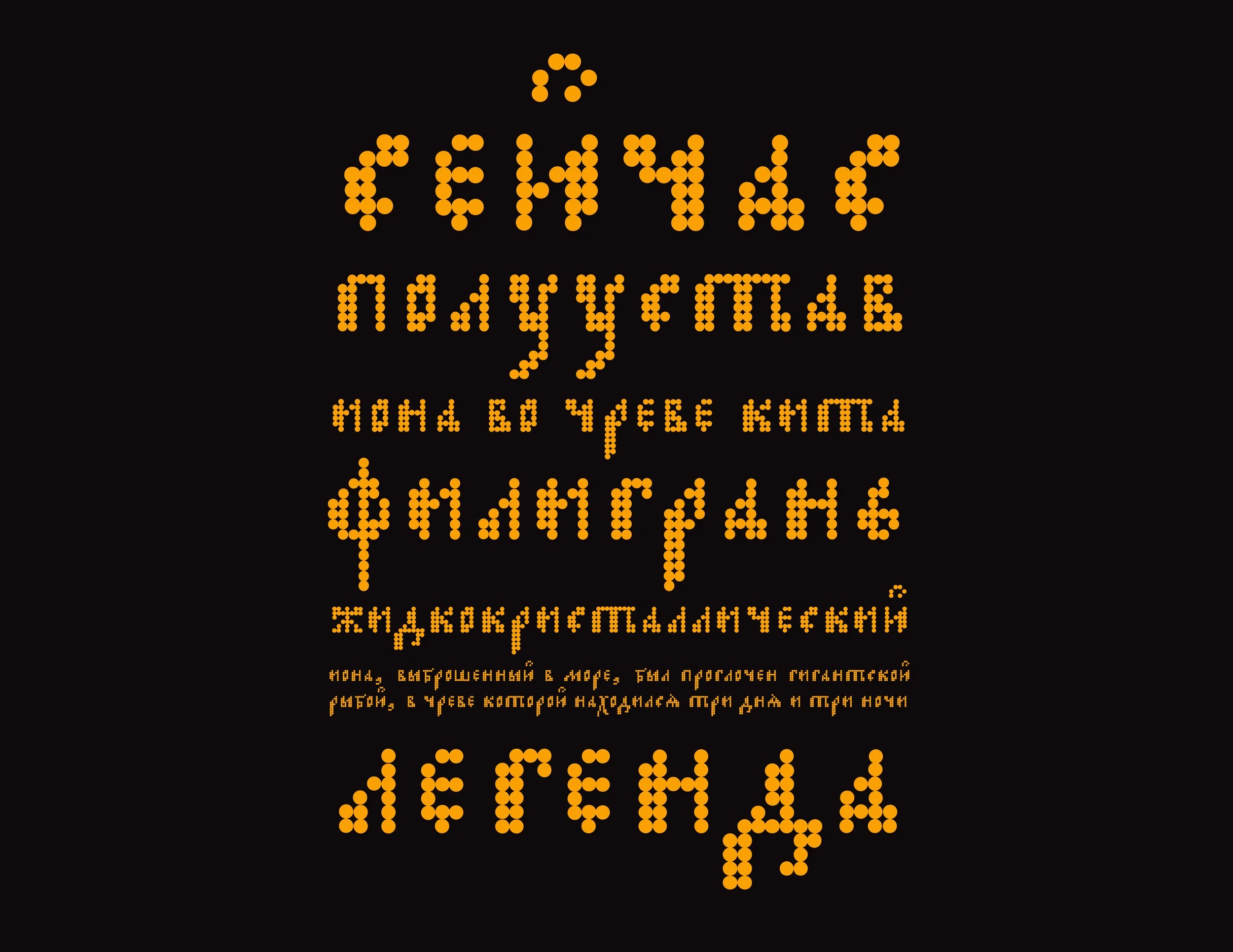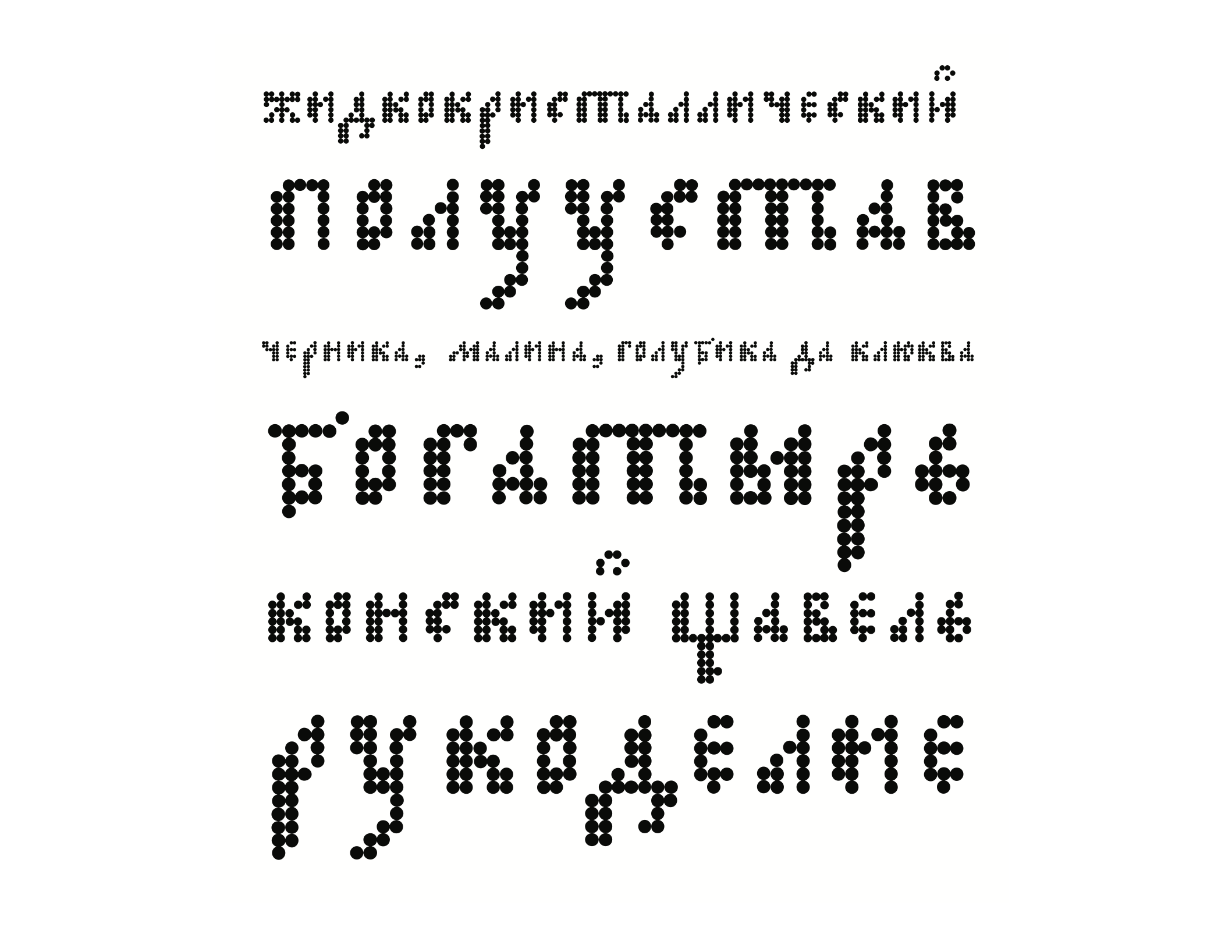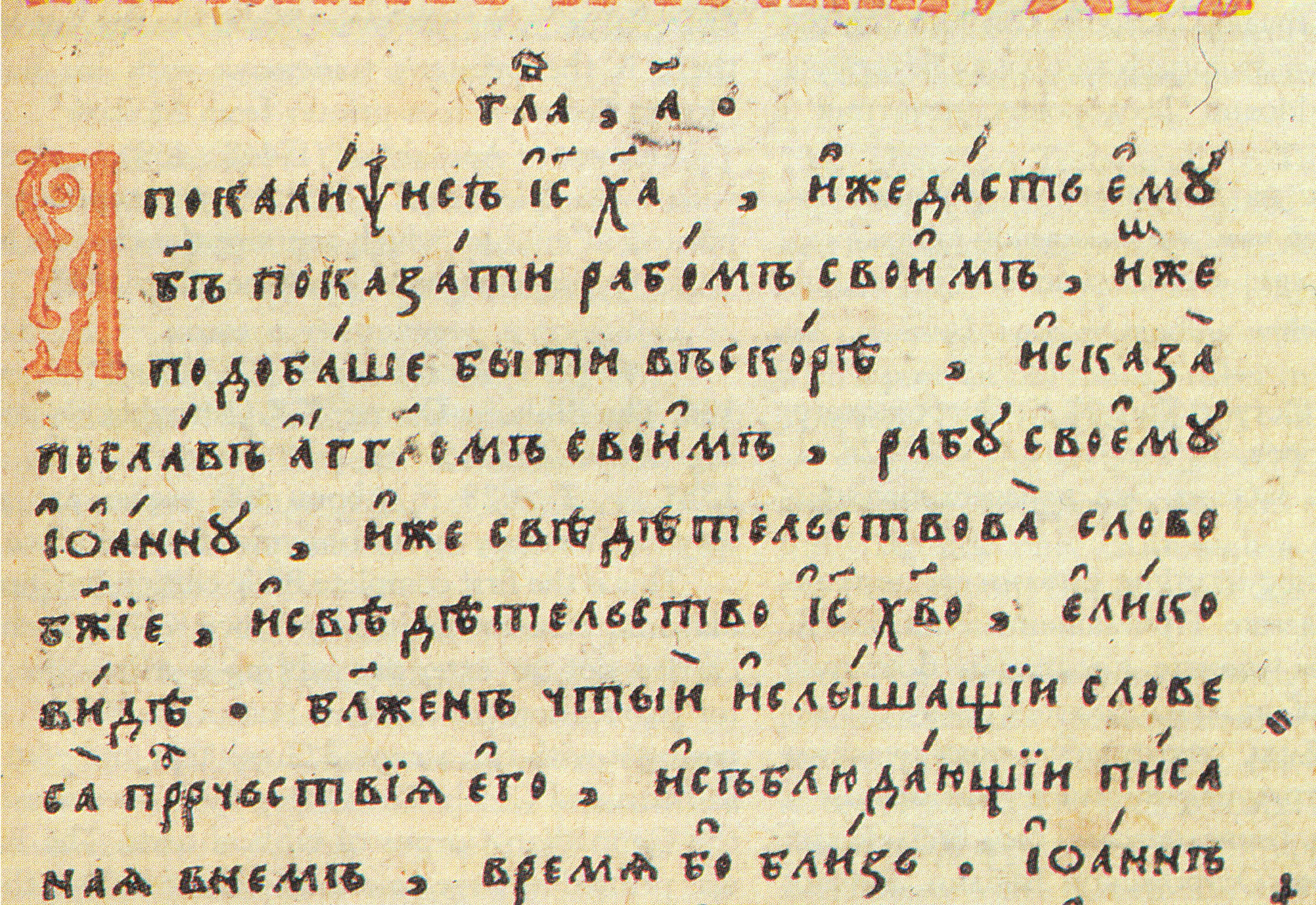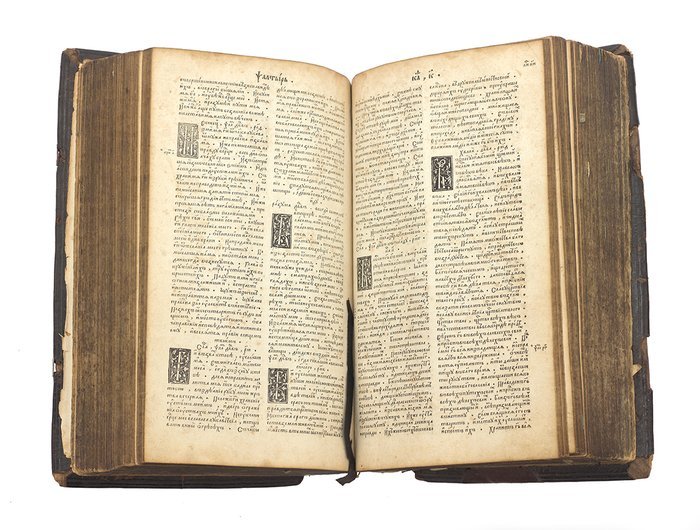
Conceived and designed in 2006, Iona pixel type is a brave interpretation of the very early Cyrillic type from the Ostrog Bible, printed by Ivan Fyodorov in 1581.
In this experimental design Vera is mixing two strong and different messages of absolutely distant cultural phenomena: 14-century Cyrillic type and round pixels LED matrix display — e.g. religious style of Poluustav letters and display technologies, twinkling lights of the contemporary night cities.
Iona font contrasts and unites these two different phenomena, making Poluustav enter such an unusual environment.
It can be a tool for postmodernist messages, as well as it is a message itself.